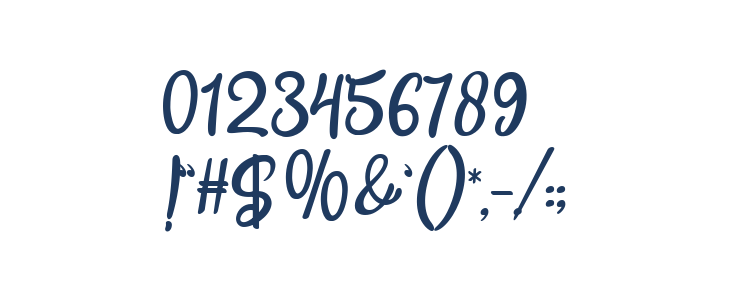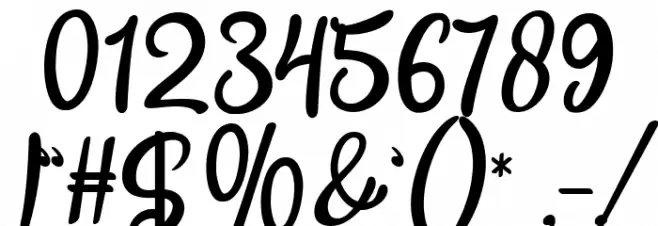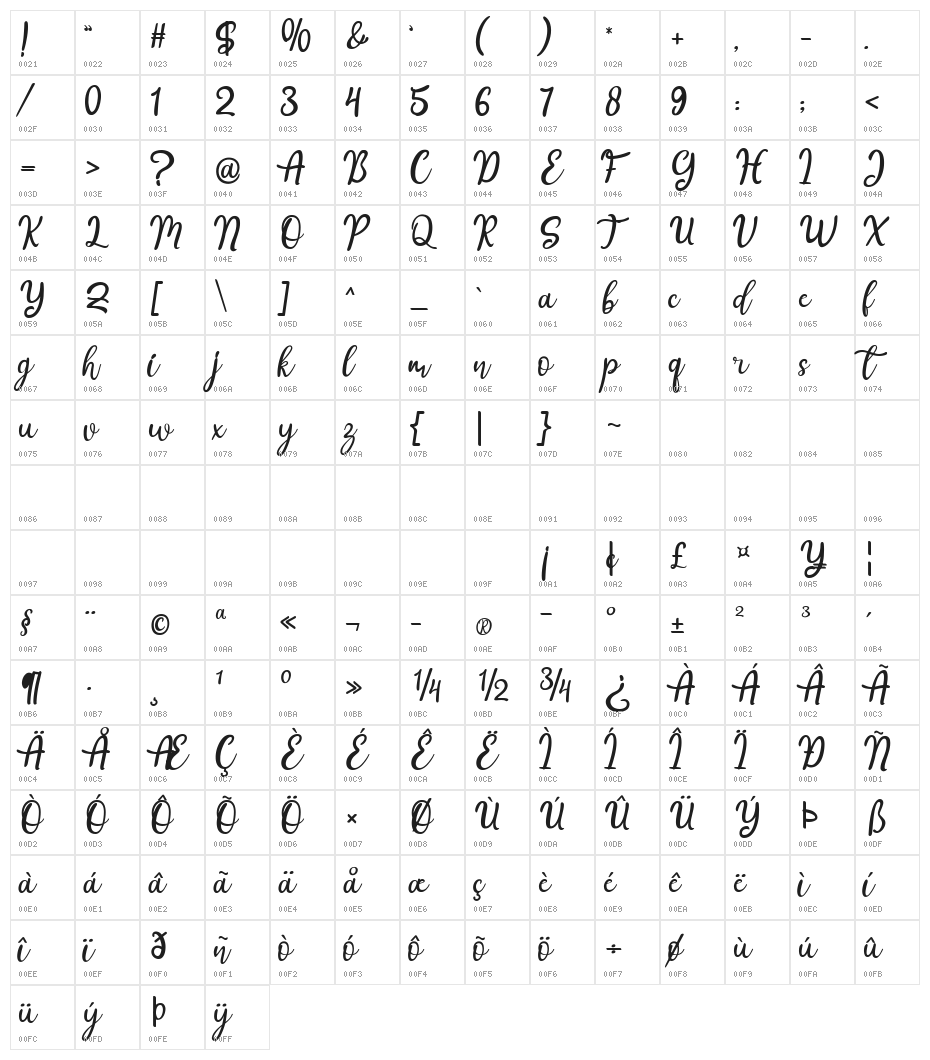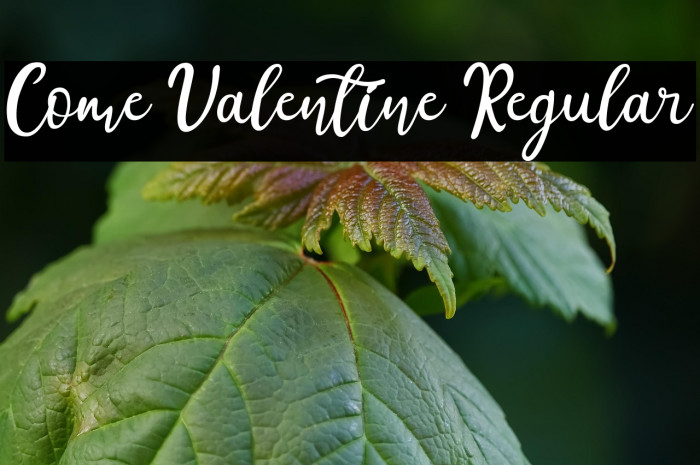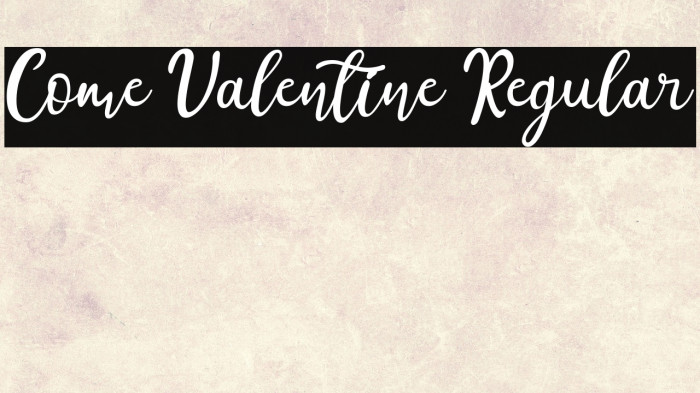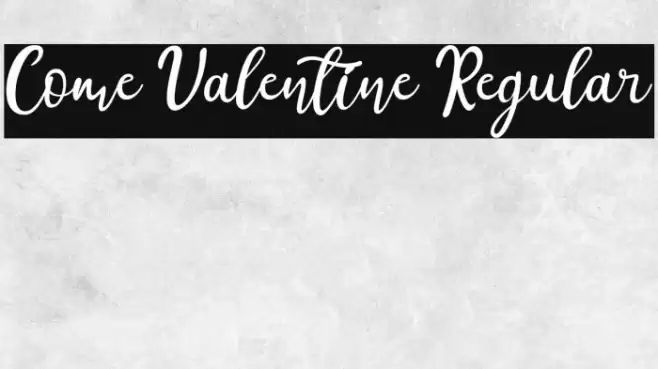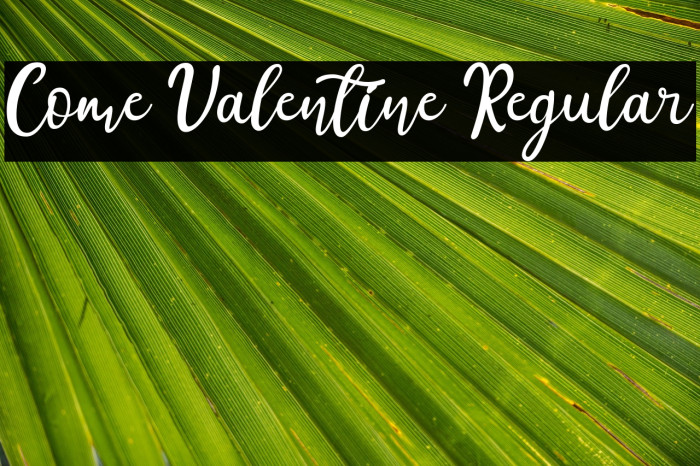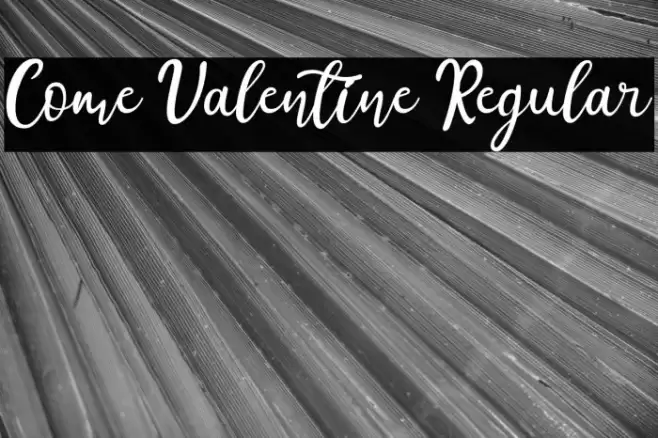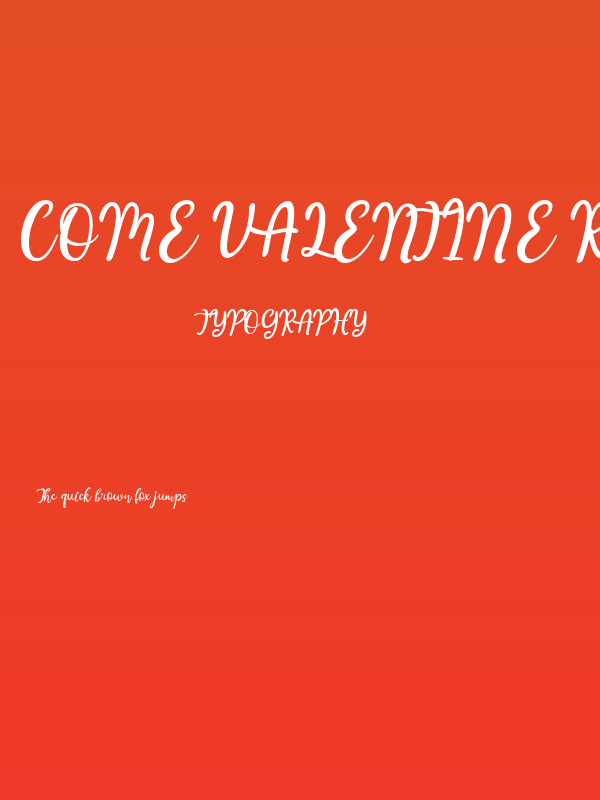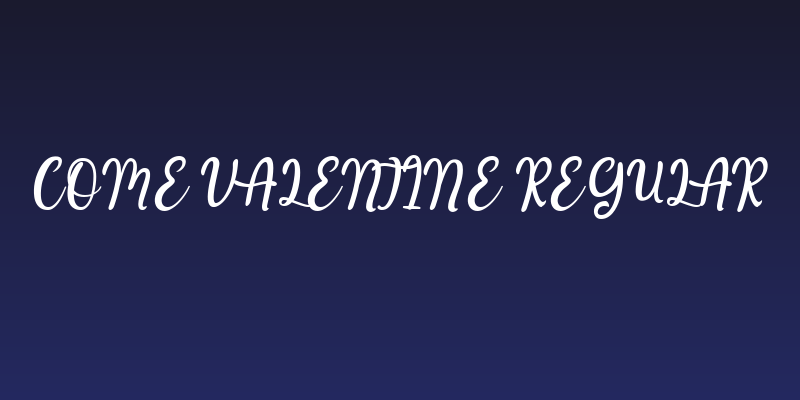
Come Valentine Regular Font
Come Valentine Regular Description
This font exudes a playful and romantic charm, characterized by its flowing, cursive style. The letters are interconnected with smooth, sweeping strokes that give it a handwritten feel. The uppercase letters are bold and expressive, while the lowercase letters maintain a consistent rhythm with elegant loops and curves. The numerals are equally stylish, featuring a harmonious blend of curves and straight lines. Special characters are thoughtfully designed to match the overall aesthetic, adding to its versatility. This font is perfect for creating a warm and inviting atmosphere, ideal for projects that require a personal touch.
| Overall Style | Romantic, Playful |
| Use Case | Headlines, Invitations, Personal Branding |
| Proposed Projects | Ideal for wedding invitations, greeting cards, personal branding, and romantic-themed designs. |